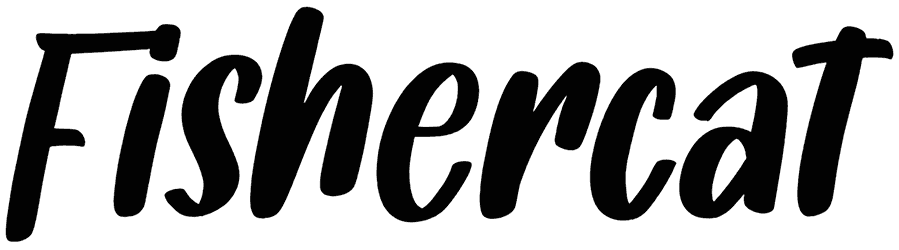
Fishercat Font
Sometimes finding a suitable font for designing that kind of graphic content including posters, greeting cards, business cards, social media posts, or branding projects that require a personalized touch would be a little bit tricky, but a script font like Fishercat would be really helpful in this occasion.
Since its characters are a little bit crooked and obliqued, it can lead to a sense of dynamic, vivacity, and approachability. Considering all its advantages, the lack of numbers would be overlooked.